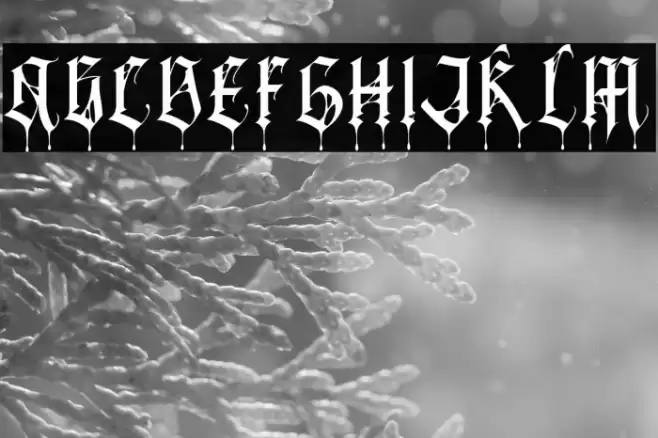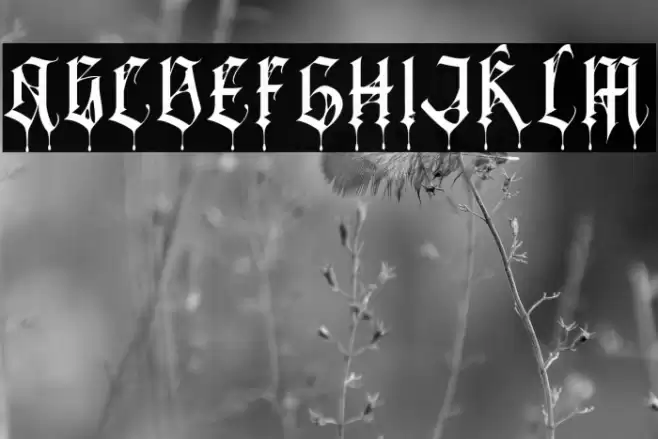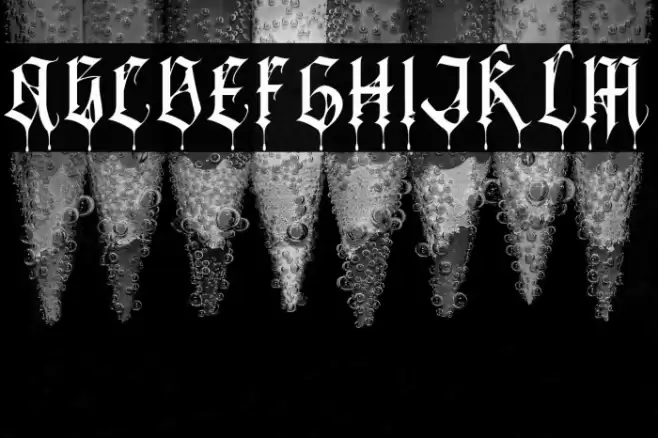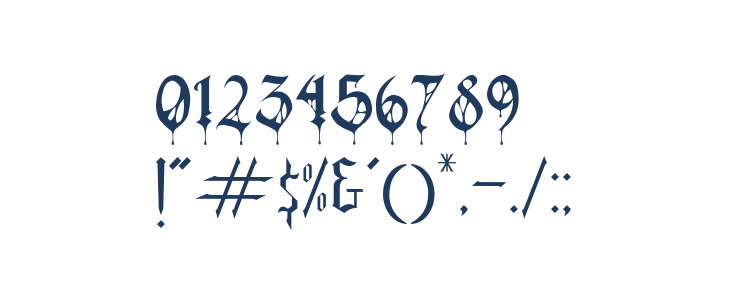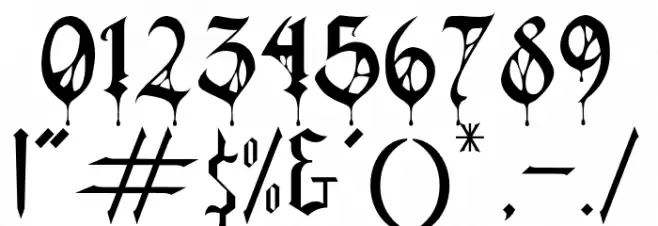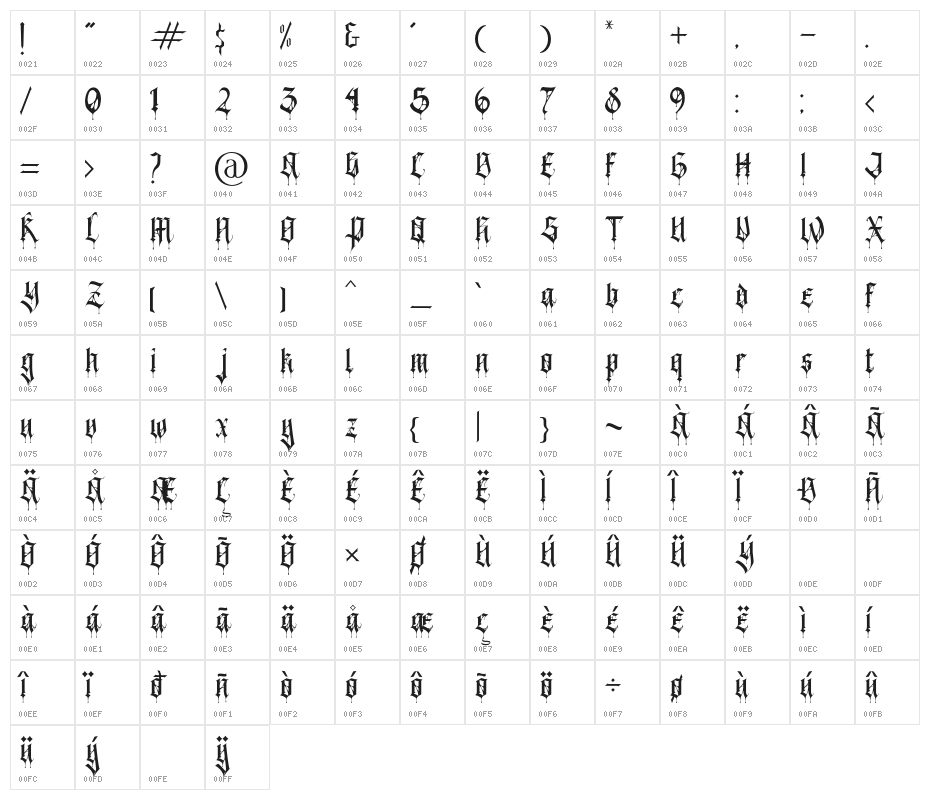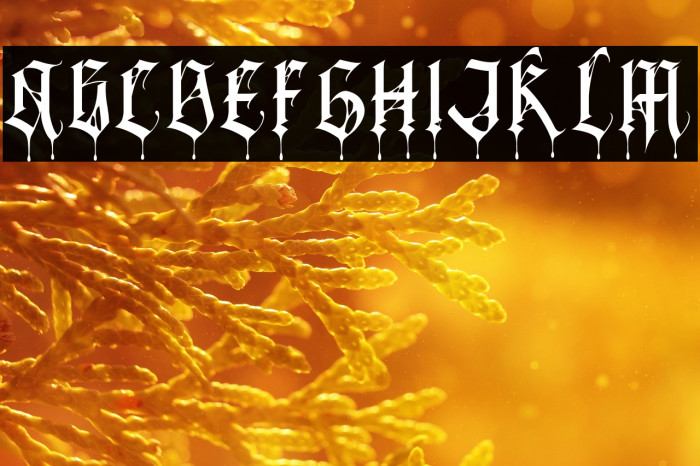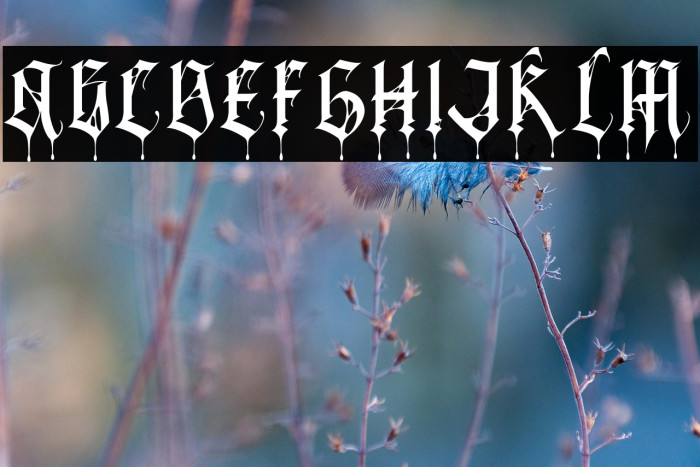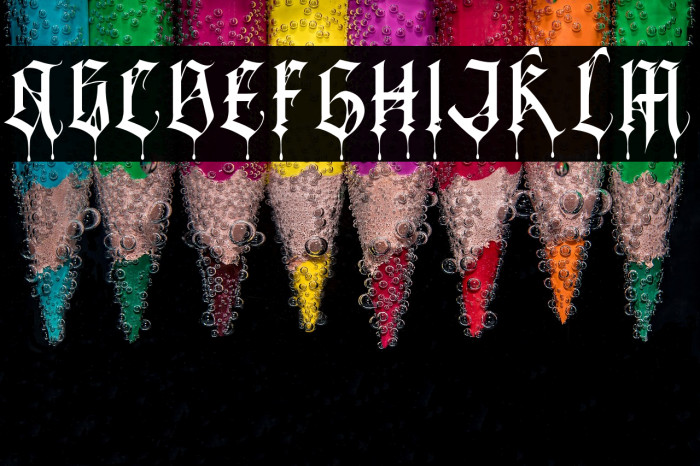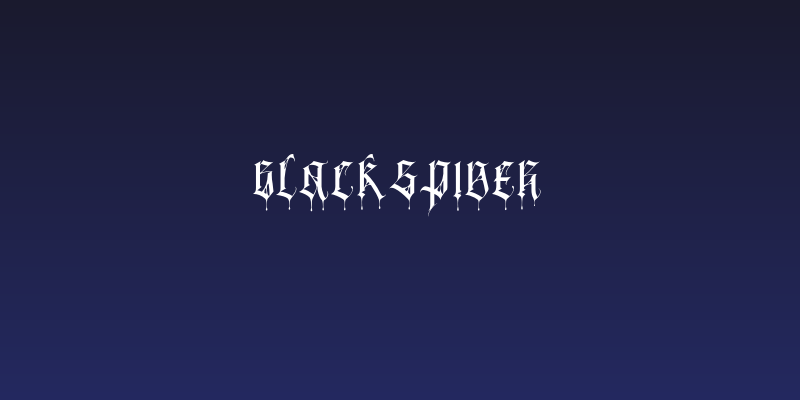
BlackSpider Font
BlackSpider Description
This font exudes a gothic and medieval aesthetic, characterized by its sharp, angular lines and intricate detailing. The uppercase letters are bold and commanding, with elongated vertical strokes and pointed serifs that give a dramatic flair. The lowercase letters maintain the same intricate style, offering a cohesive look across the alphabet. Numbers and special characters are equally ornate, ensuring consistency throughout. This font's unique style is reminiscent of old English calligraphy, making it ideal for projects that require a historical or fantasy theme.
A gothic, medieval-style font with sharp, angular lines and intricate detailing from Uncategorized fonts.
- Font: BlackSpider
- Character Spacing: Tight
- Overall Style: Vintage